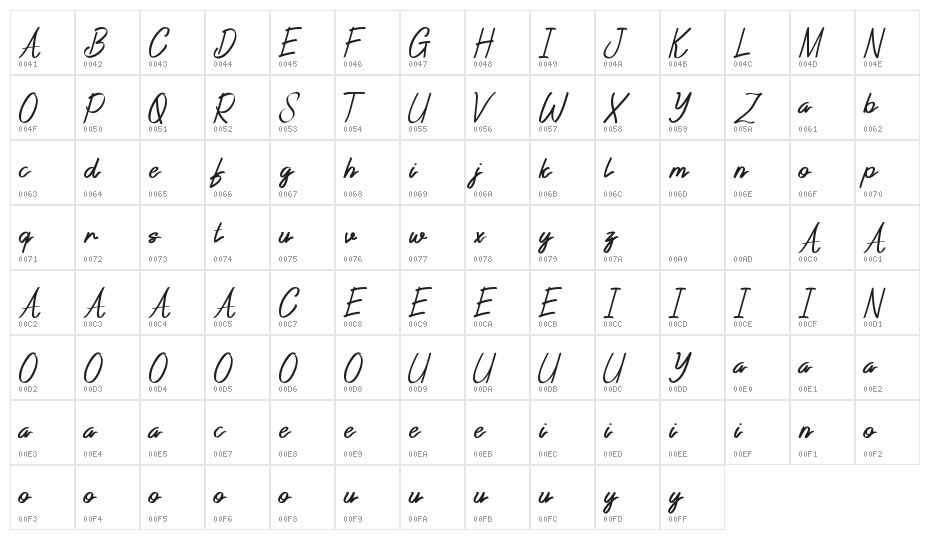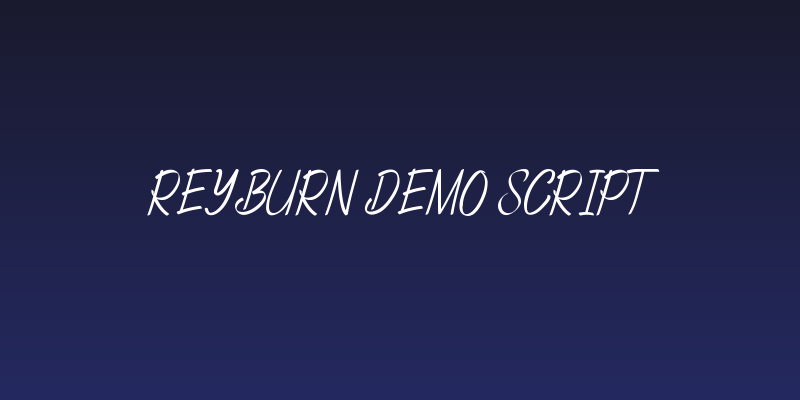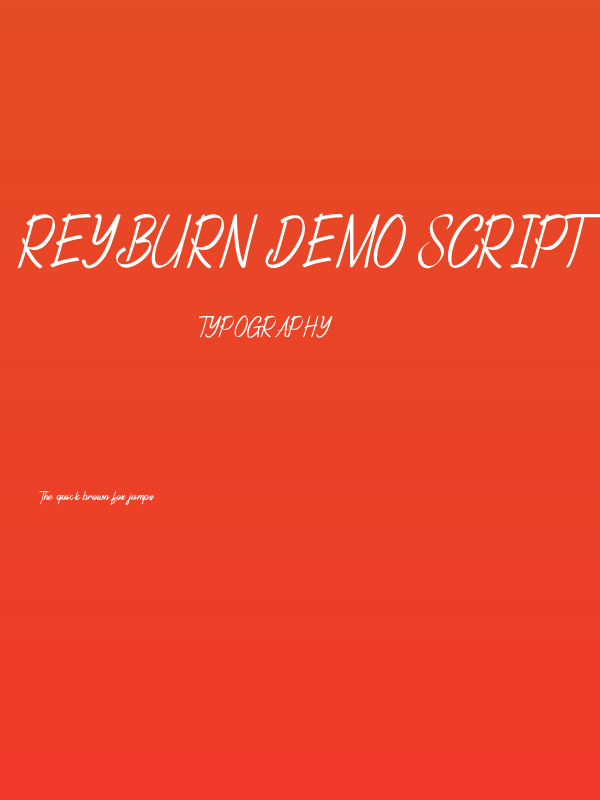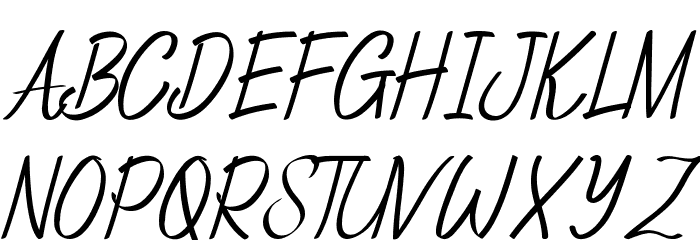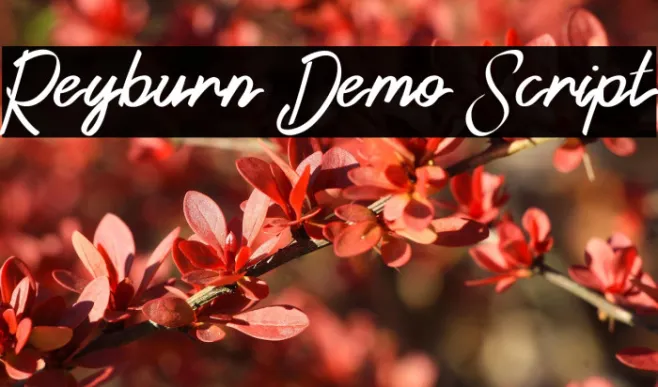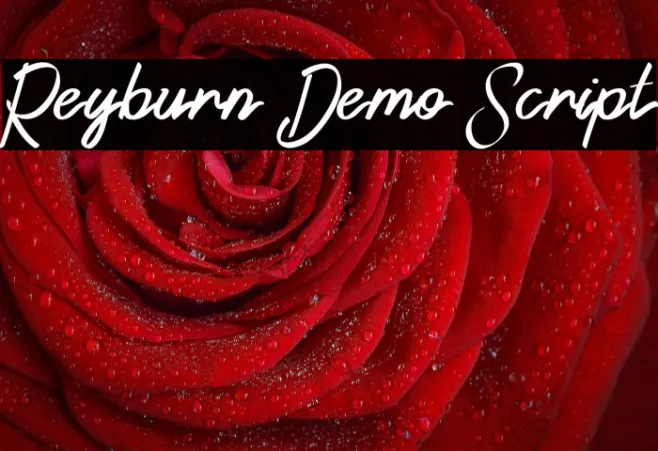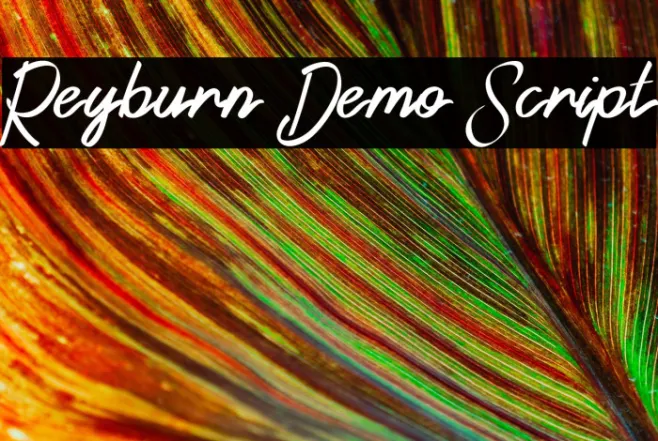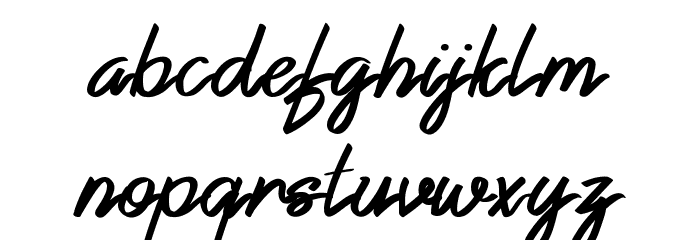
Reyburn Demo Script Font
Reyburn Demo Script Description
This font features an elegant and flowing script style, characterized by its smooth, cursive strokes and a handwritten appearance. The uppercase letters are tall and slightly slanted, giving a sense of movement and grace. The lowercase letters maintain a consistent flow, with some characters connecting seamlessly to the next. The overall design is both sophisticated and approachable, making it suitable for a variety of creative applications. The numerals and special characters are crafted with the same attention to detail, ensuring a cohesive look across all text elements.